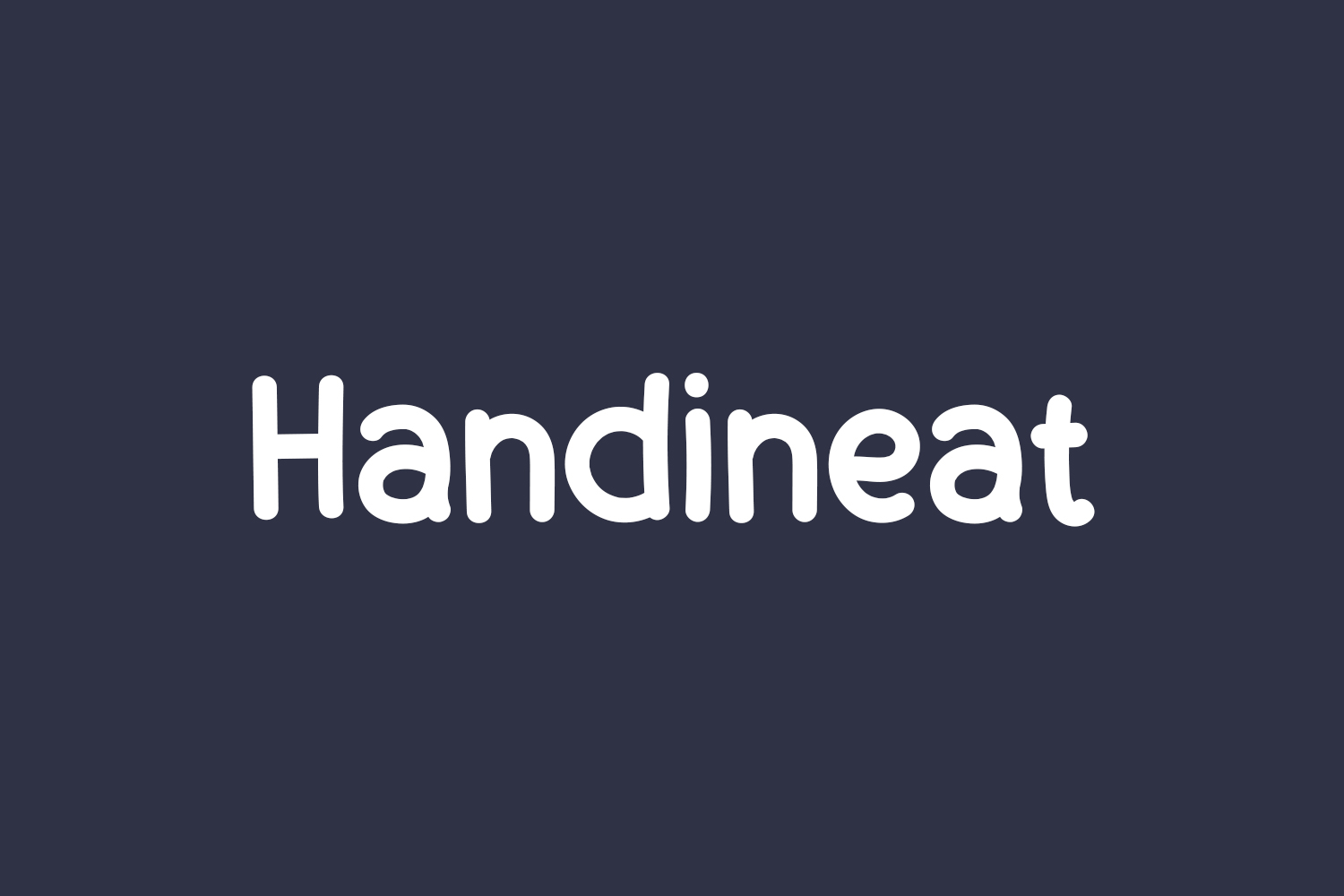
Introducing Handineat Free Font: a clean and elegant handwritten note-taking font perfect for a variety of purposes. Whether it’s for logos, branding projects, digital planners, invitations, bullet journals, greeting cards, photo albums, decorations, or any other creative endeavor, Handineat offers versatility and charm to elevate your designs. Download the font for free if you need it for personal use or purchase the full version for commercial use.
Designed by Salamahtype